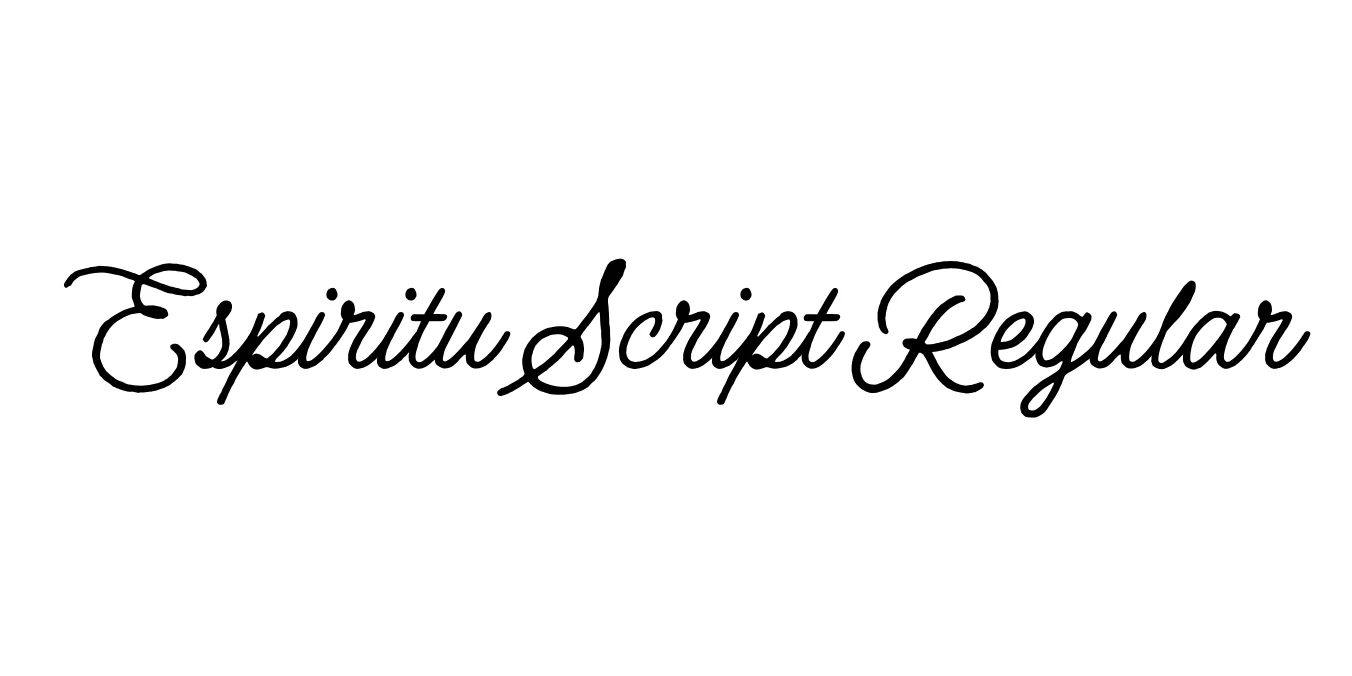
Espiritu Script Regular
Designed by Alit Suarnegara (Alit Design)
Espiritu Script Regular is a beautifully crafted modern calligraphy font designed to bring a touch of elegance and personal flair to any project. Developed by Alit Design, this typeface features fluid, rhythmic strokes and sophisticated swashes that mimic the natural flow of hand-written script. Its versatile nature allows it to transition seamlessly between formal aesthetics and casual, creative layouts, making it a favorite among graphic designers seeking a balance of luxury and approachability.
The font is particularly noted for its extensive character set, which often includes stylistic alternates and ligatures that enhance its organic feel. Whether used for high-end branding or intimate social media graphics, Espiritu Script Regular maintains high legibility while providing a distinct visual personality. Over time, it has become a staple for projects requiring a sense of craftsmanship and artisanal quality.
Espiritu Script Regular Best Uses
Perfect for invitations, save-the-dates, and place cards requiring a romantic touch.
Ideal for logos in the beauty, fashion, or lifestyle sectors to convey luxury.
Great for creating inspiring quotes and eye-catching Instagram content.
Adds a premium, artisanal touch to boutique product labels and gift boxes.